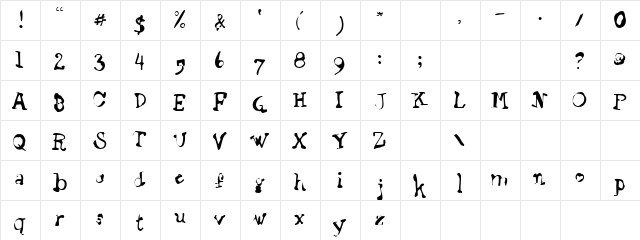
Cartoony Alphs Regular
Design Context for Cartoony Alphs Typeface
Cartoony Alphs has an approachable, lighthearted character — its loose, expressive forms are well-suited to children's content, casual branding, and fun-first design.
Font Pairing: Pairs well with a rounded or humanist sans for body copy, maintaining the friendly tone without relying on Cartoony Alphs to carry extended reading.
Pro Tip: Use Cartoony Alphs at larger display sizes where its expressive character can land. Pair with a clean, simple sans for body copy to maintain readability.